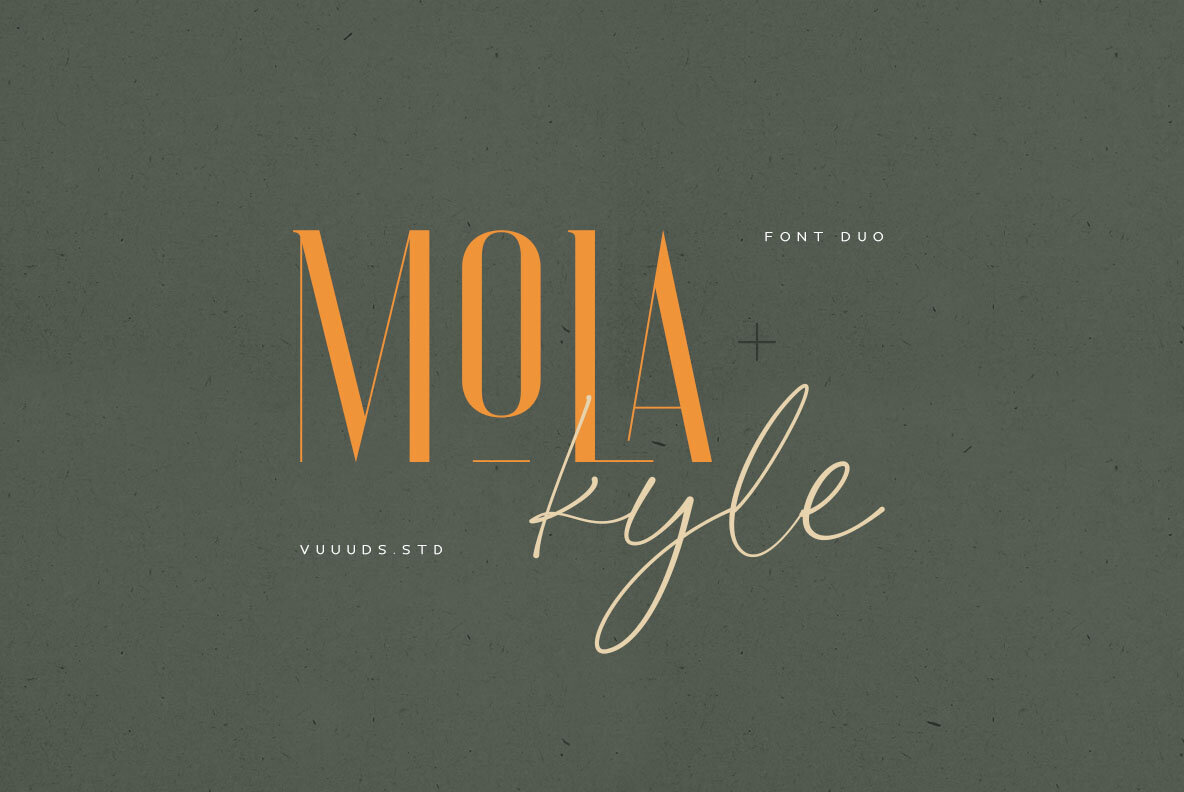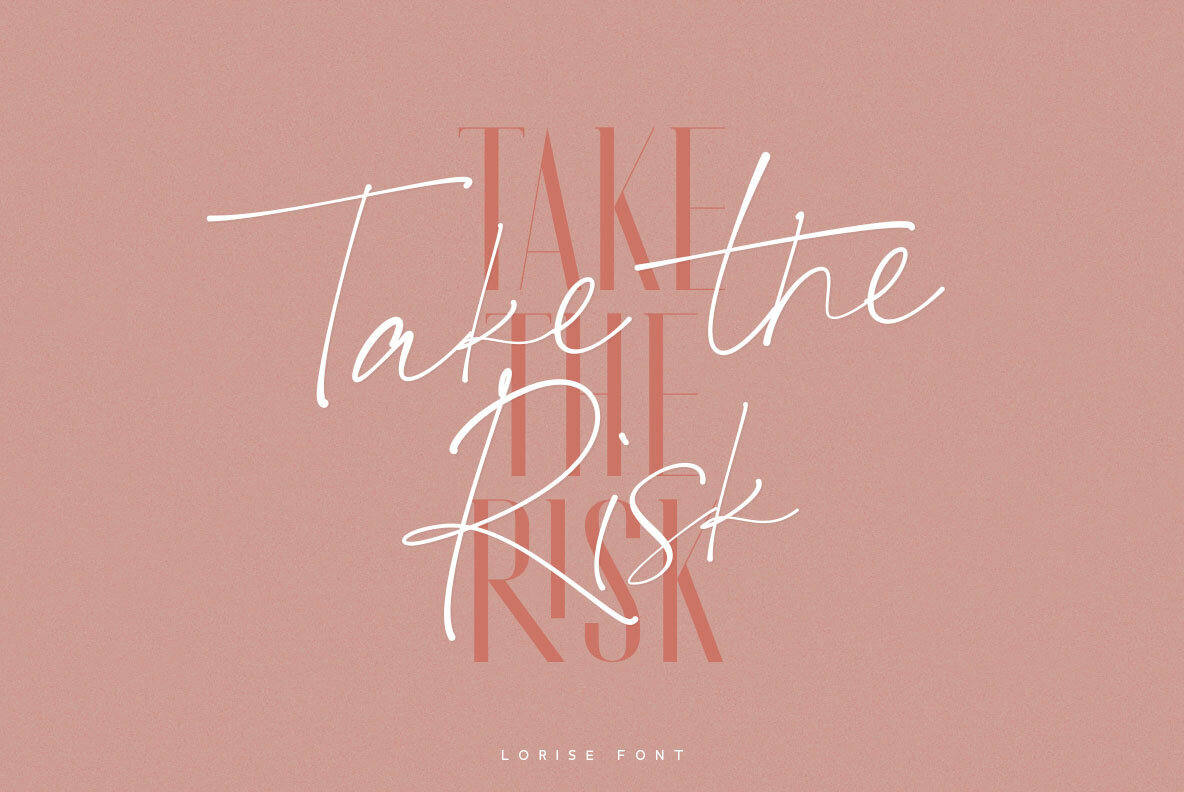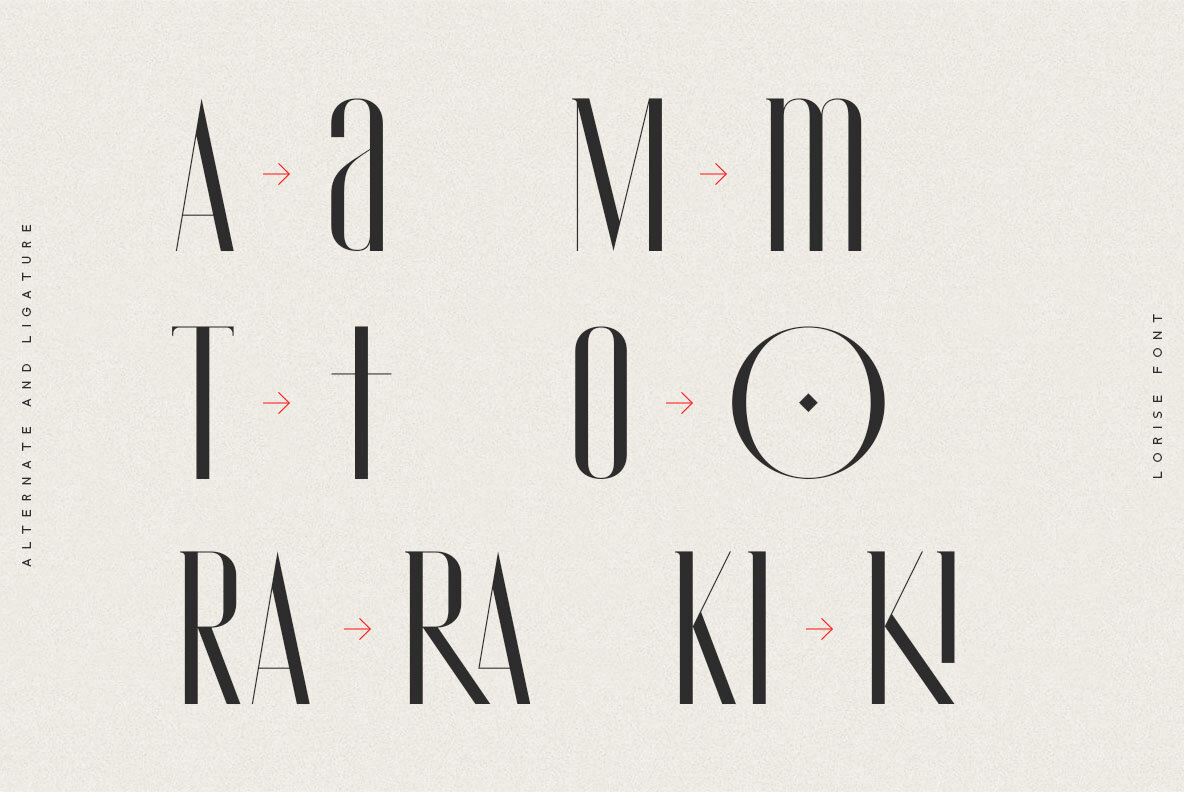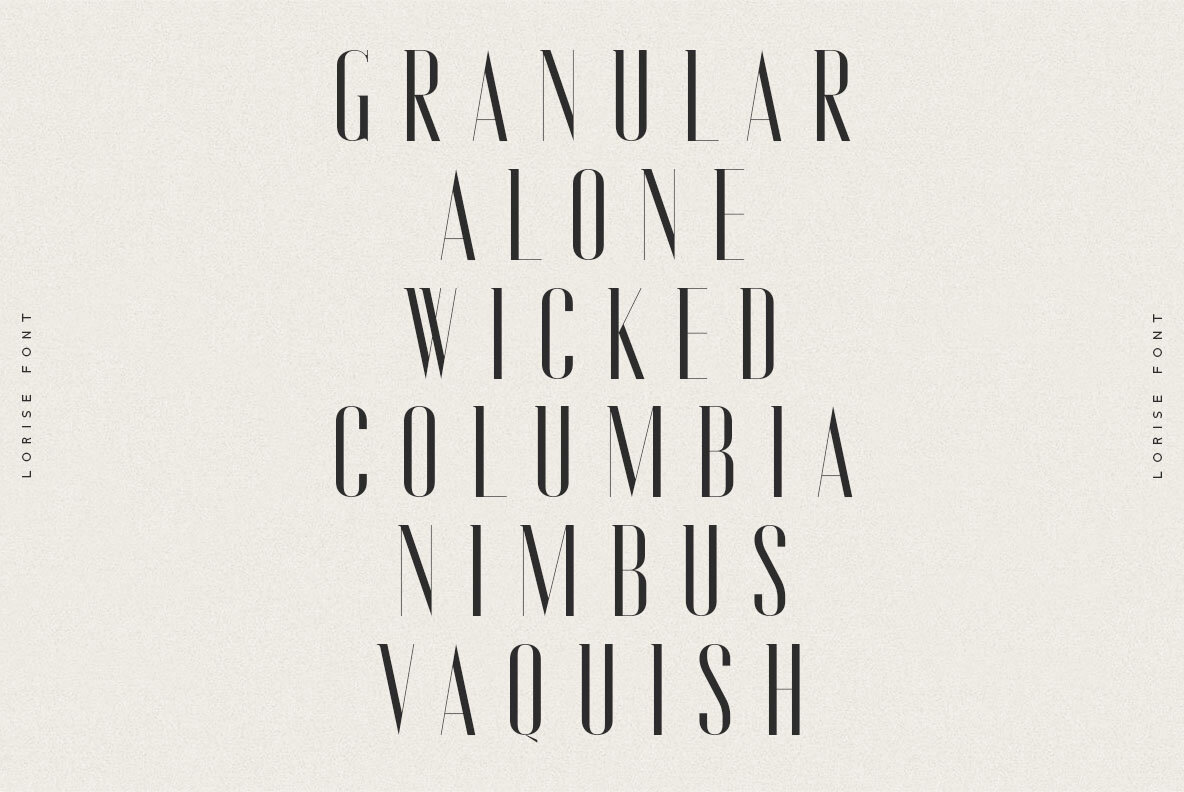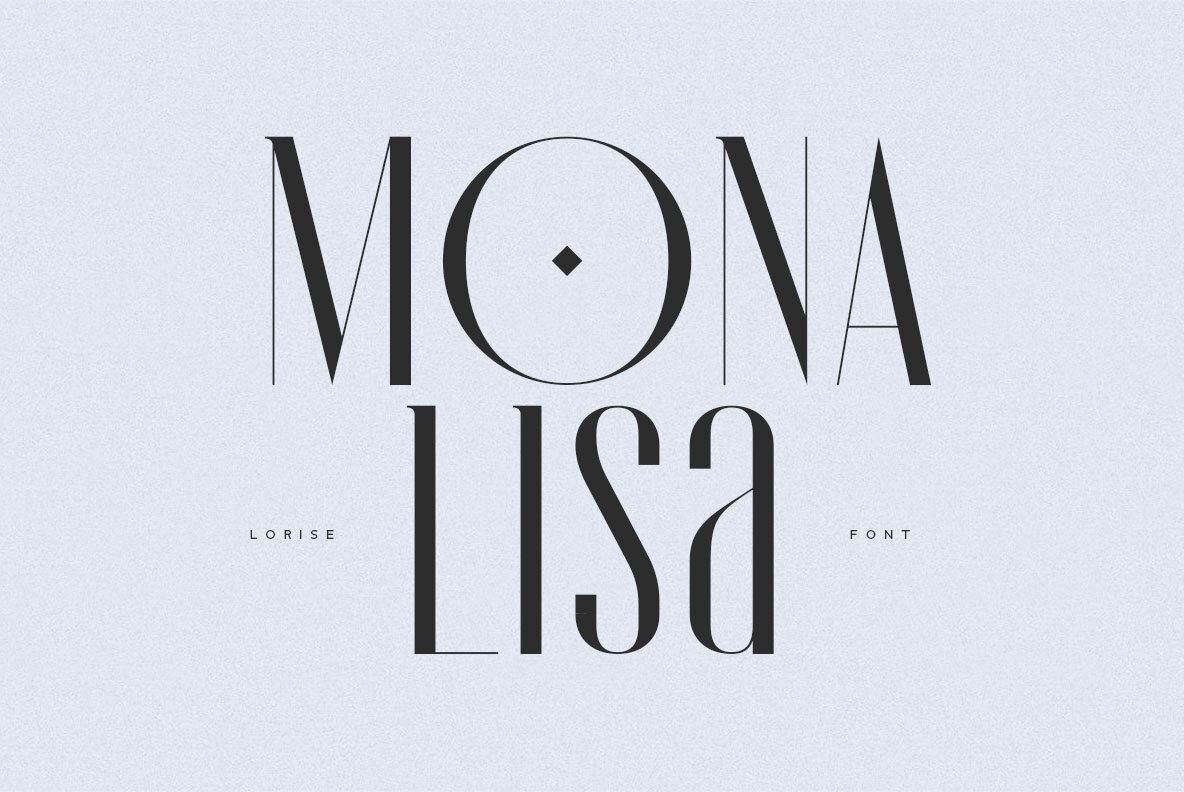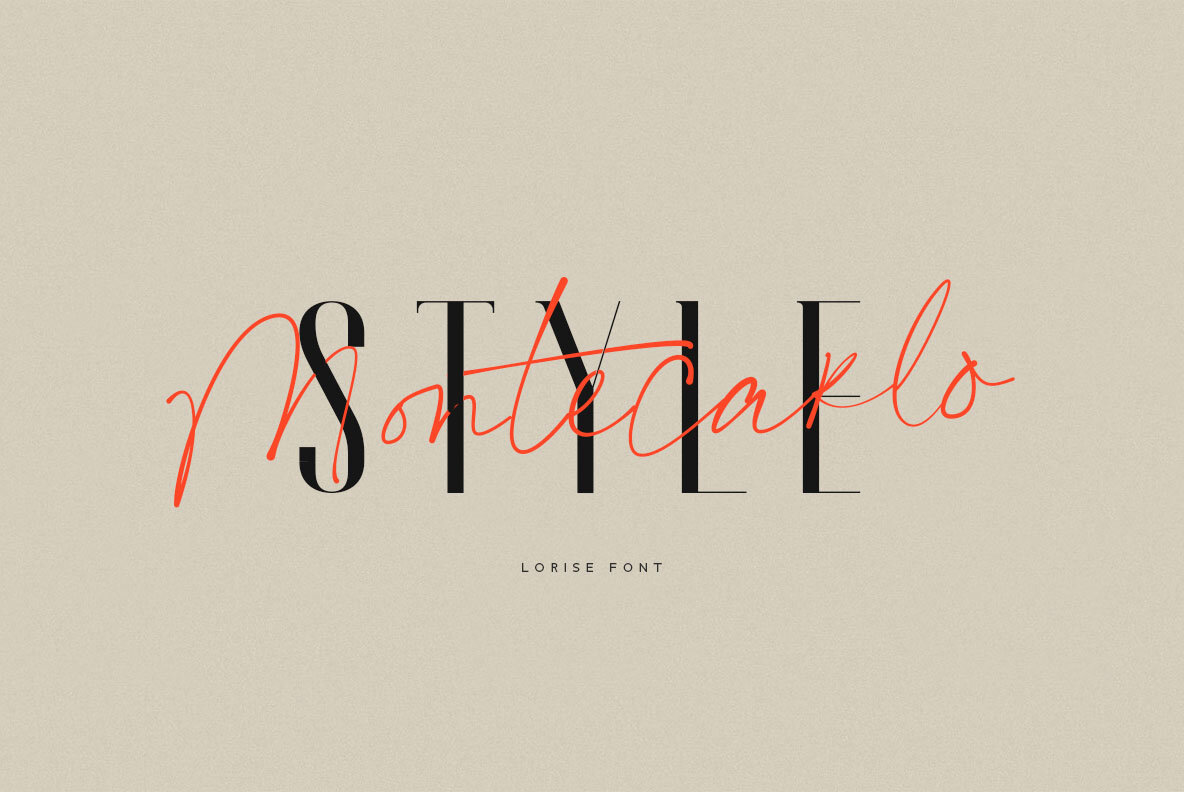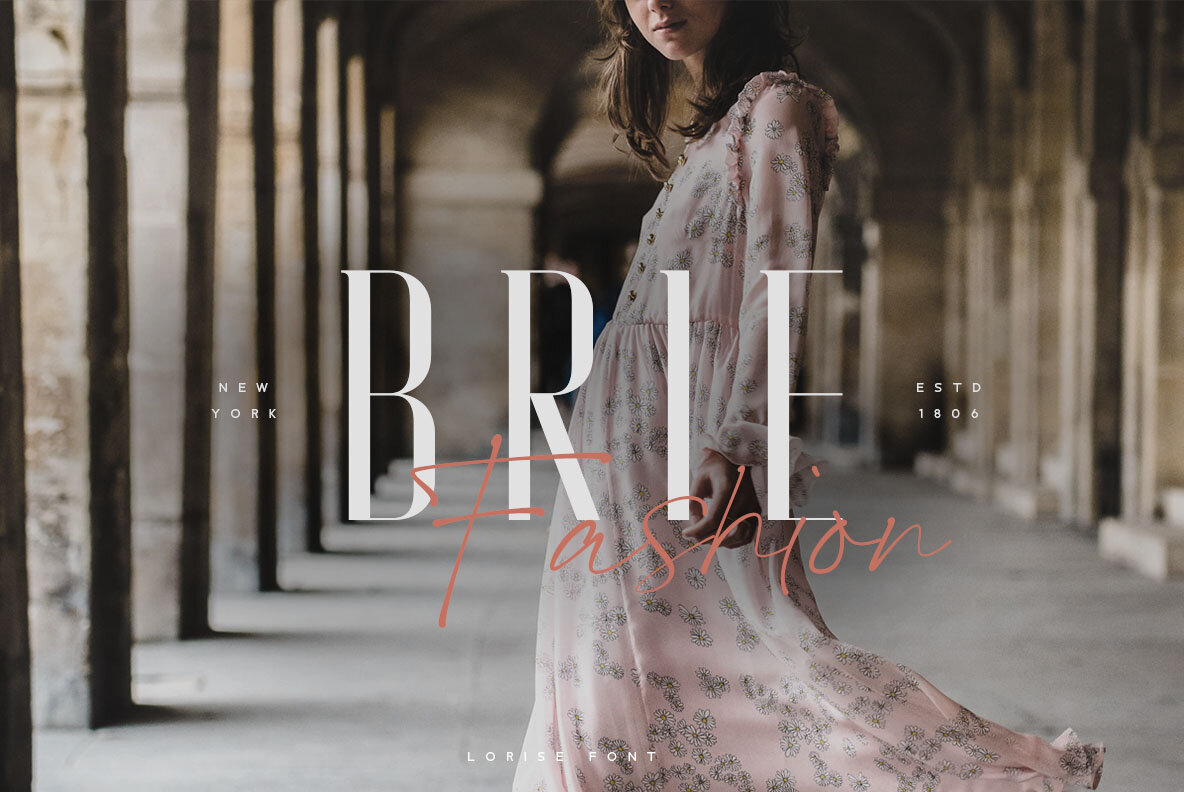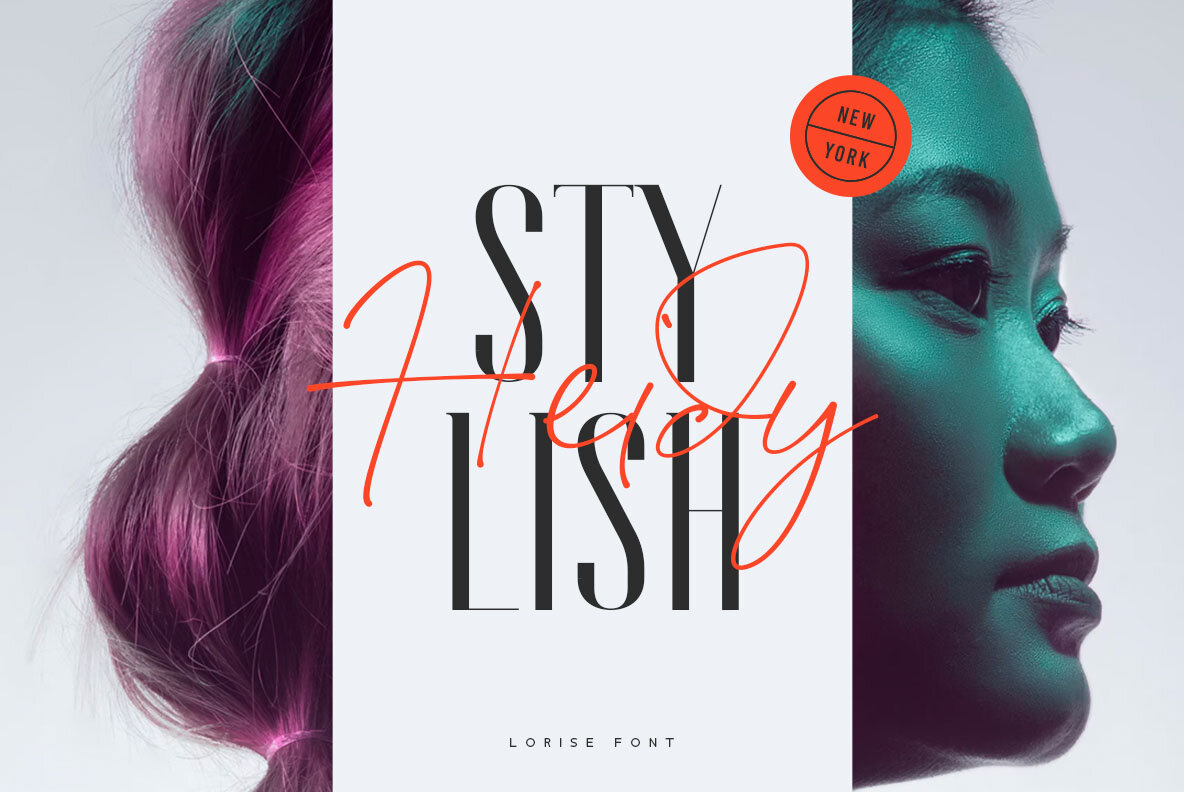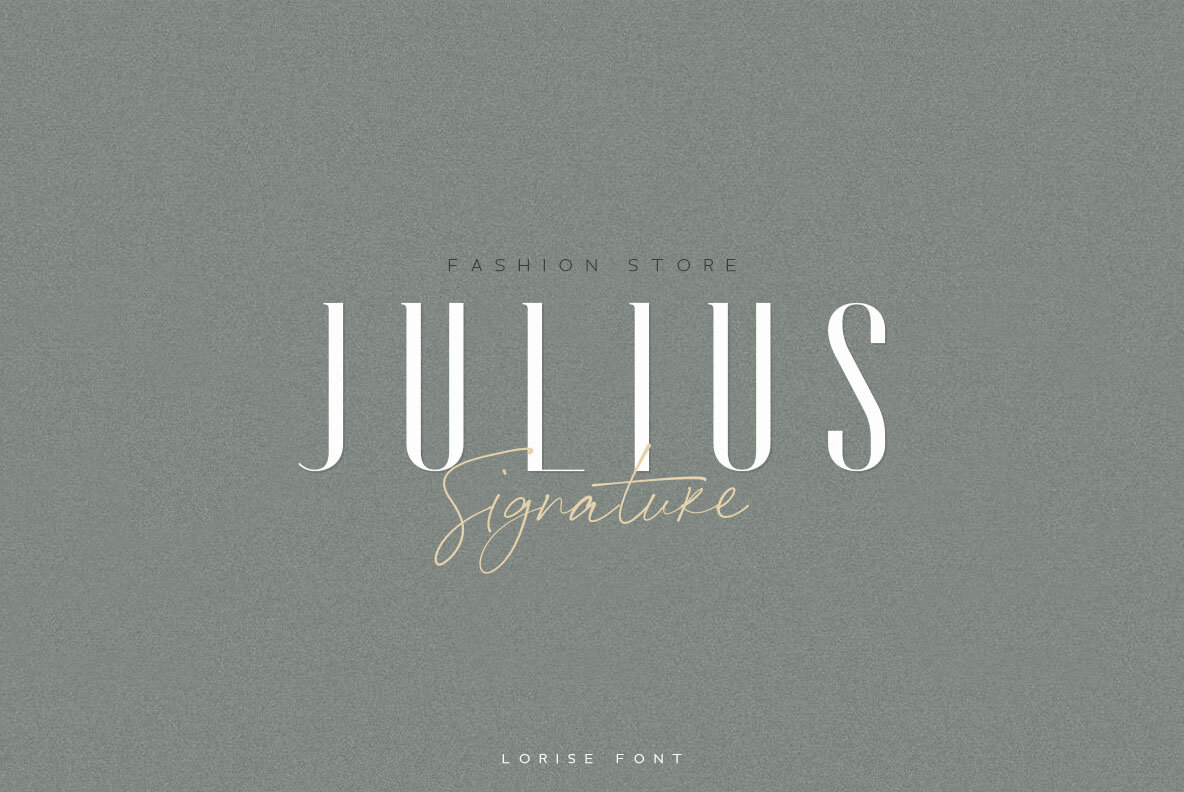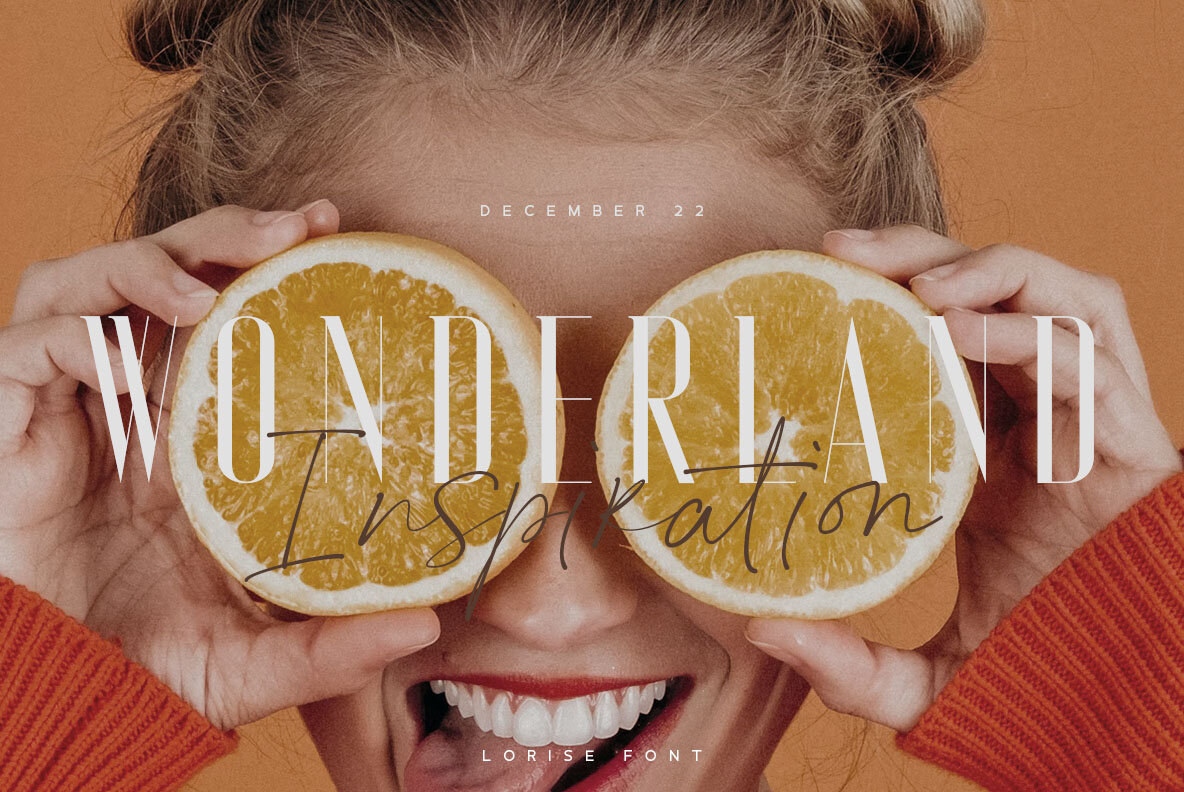
Lorise Font
Experience the sophisticated appeal of Lorise, a meticulously crafted modern font duo by Agung Syaifudin. Each letter has been thoughtfully designed to provide a stylish and contemporary aesthetic, making it an ideal choice for branding and editorial projects. Lorise includes stunning alternate glyphs, easily accessible through Font Book for Mac users or Windows Character Map for those on Windows.Lorise: A Modern Font Duo with Elegant Alternates